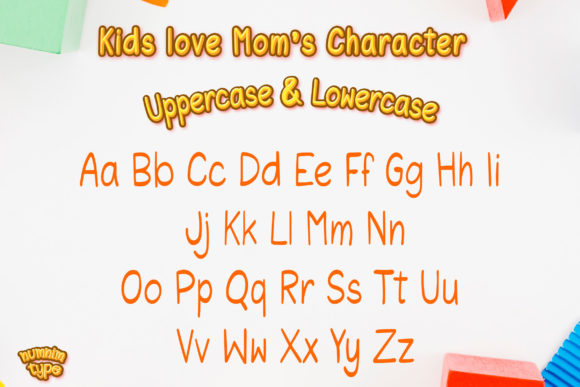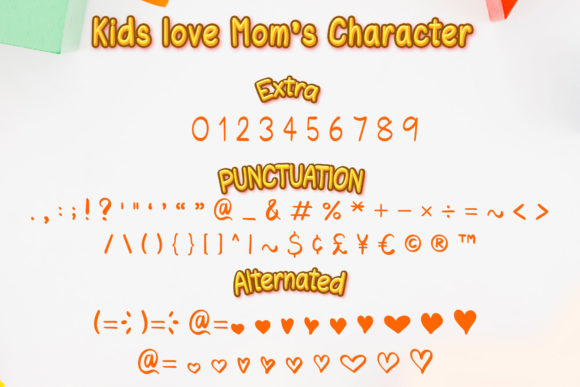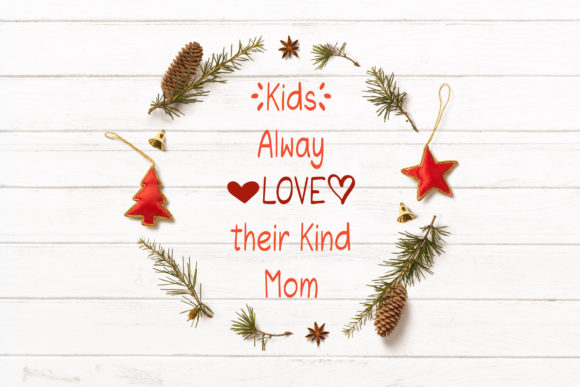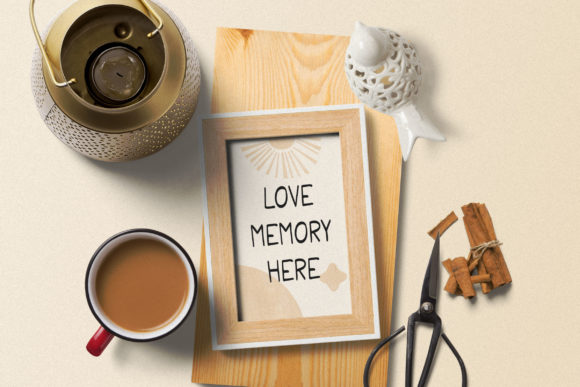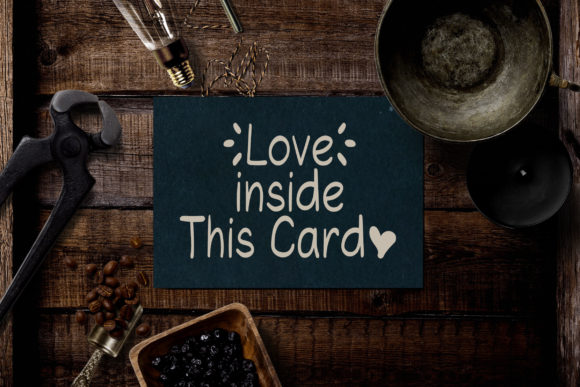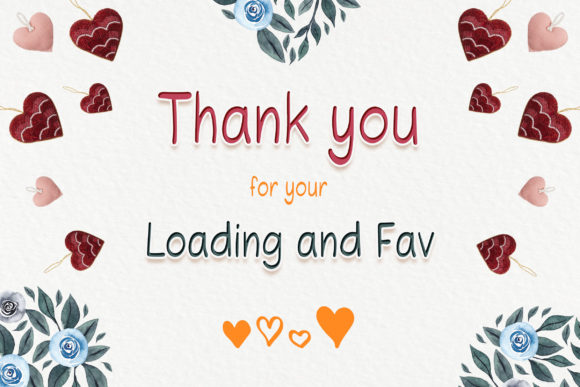
Introduction to Kids Love Mom Font
Kids Love Mom is a joyful and friendly handwritten font, featuring cute doodle elements.
Fall in love with its sweet, versatile style and use it to create lovely designs for school or children related .
Key Features of Kids Love Mom Font